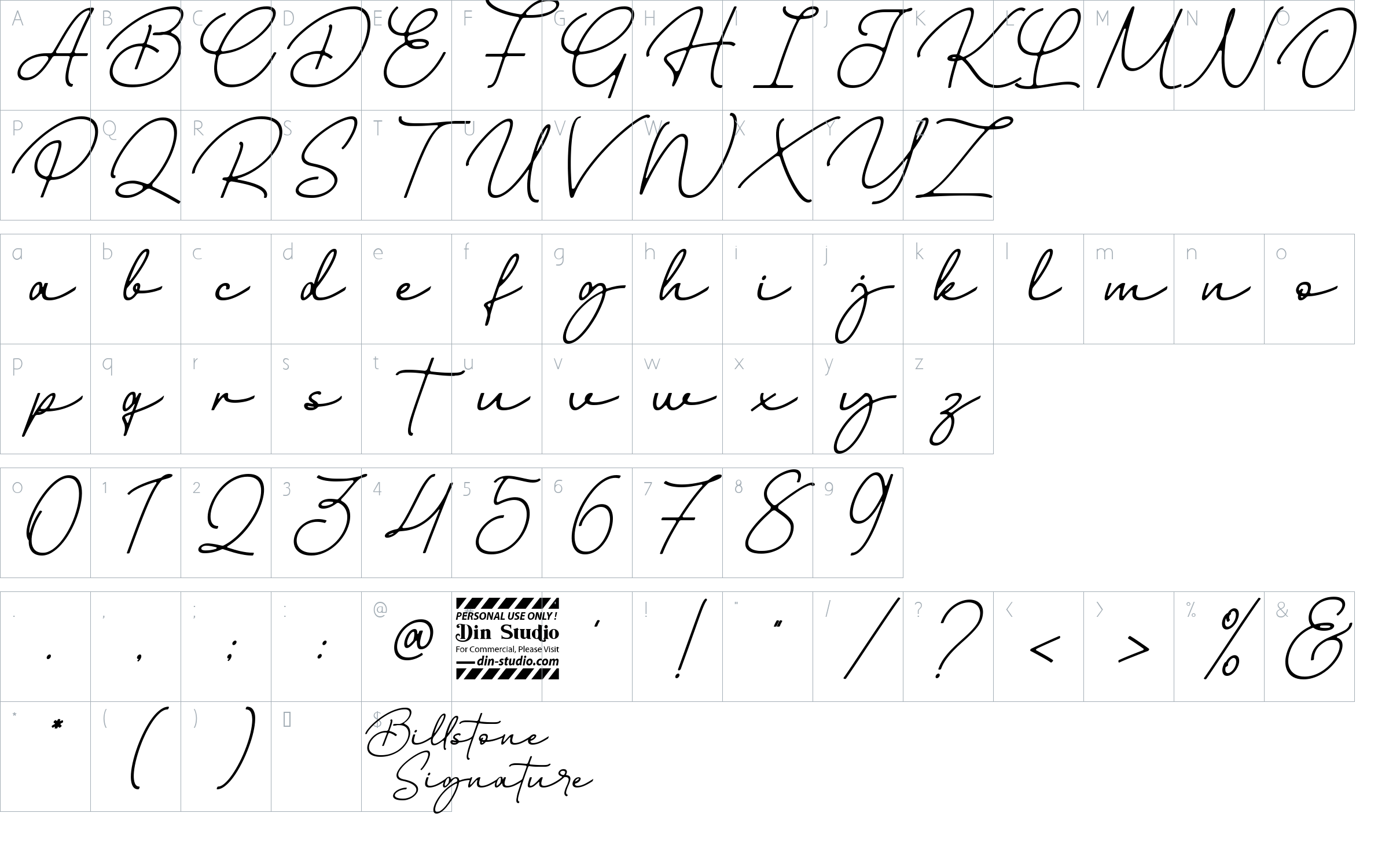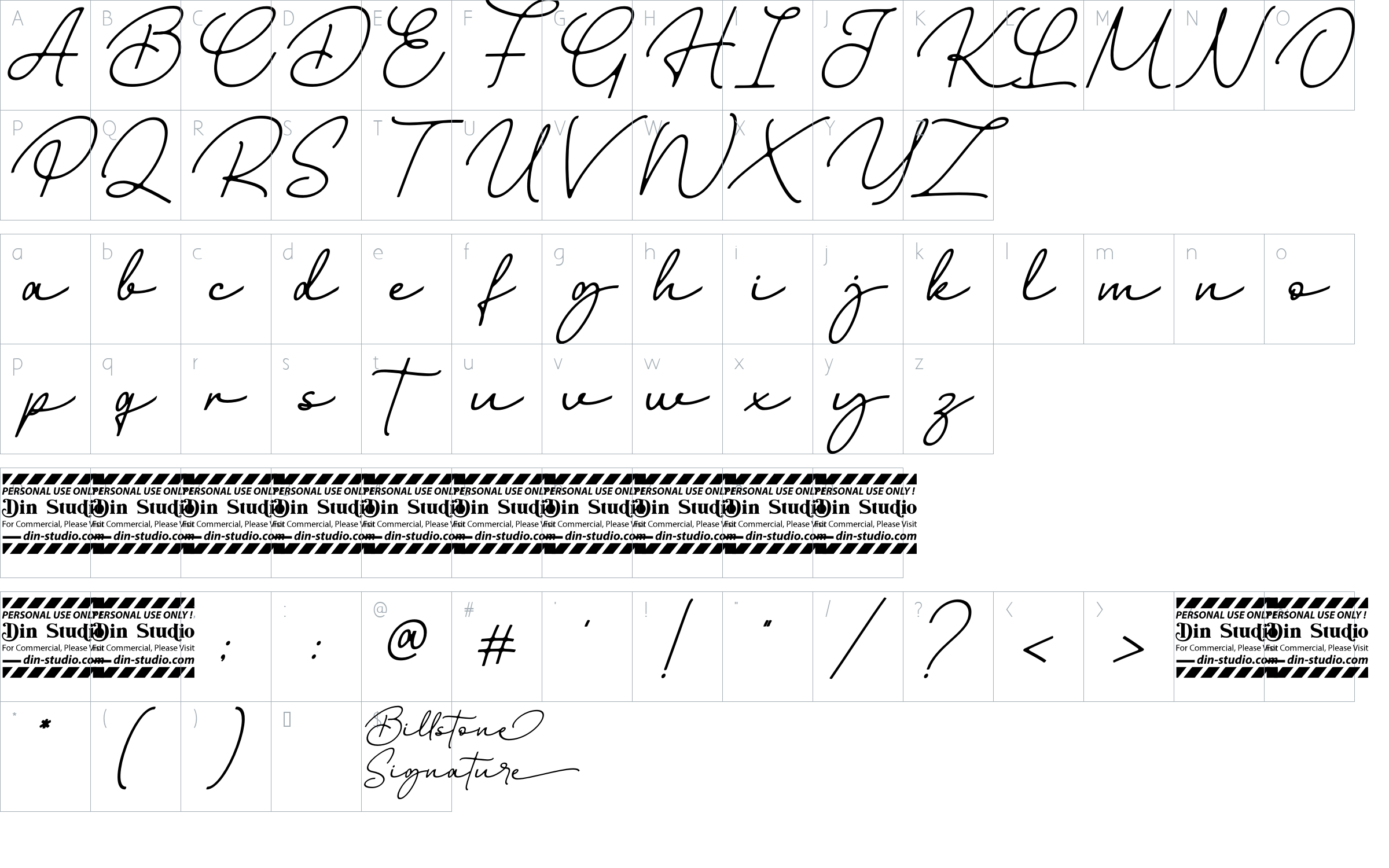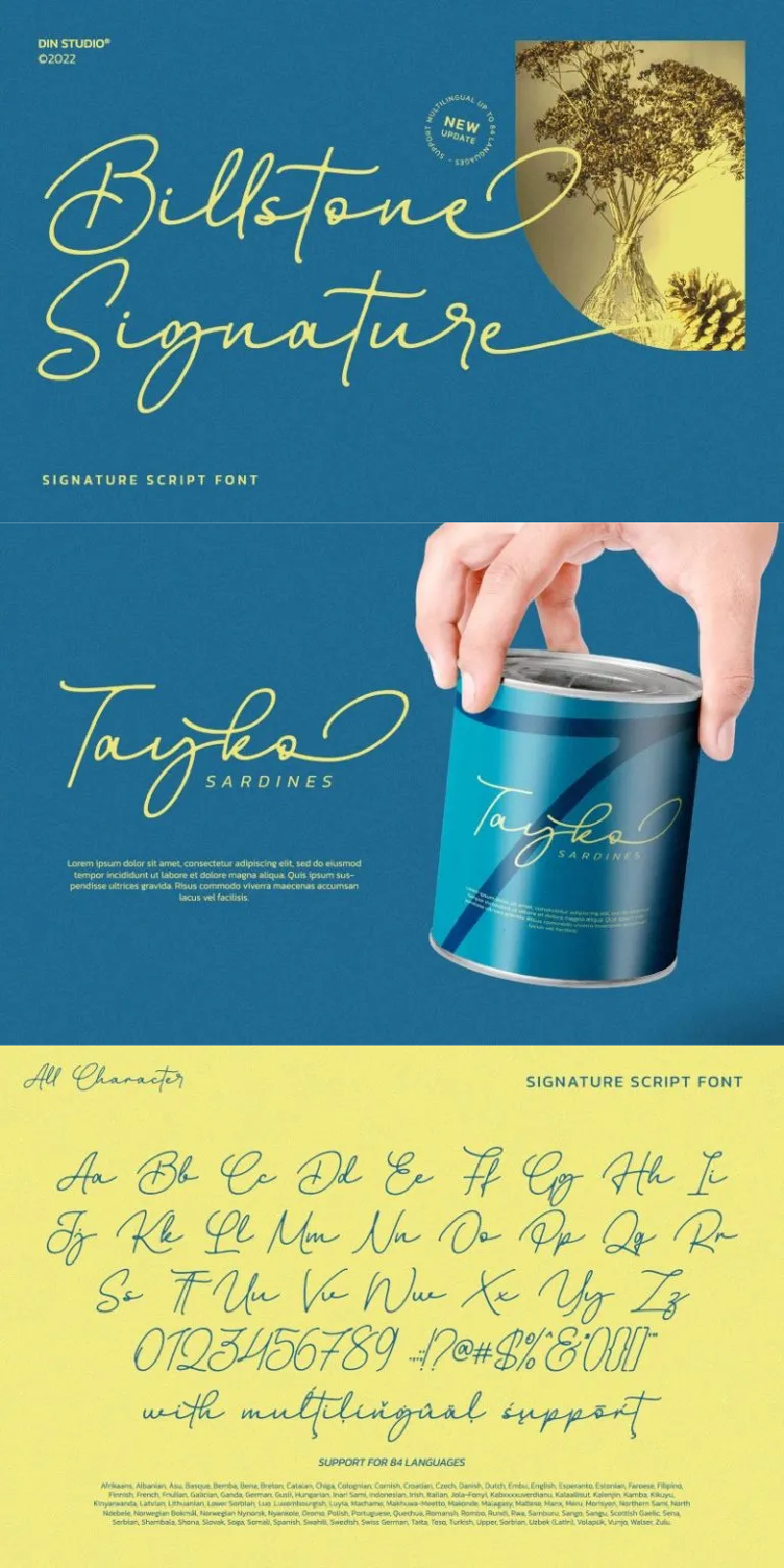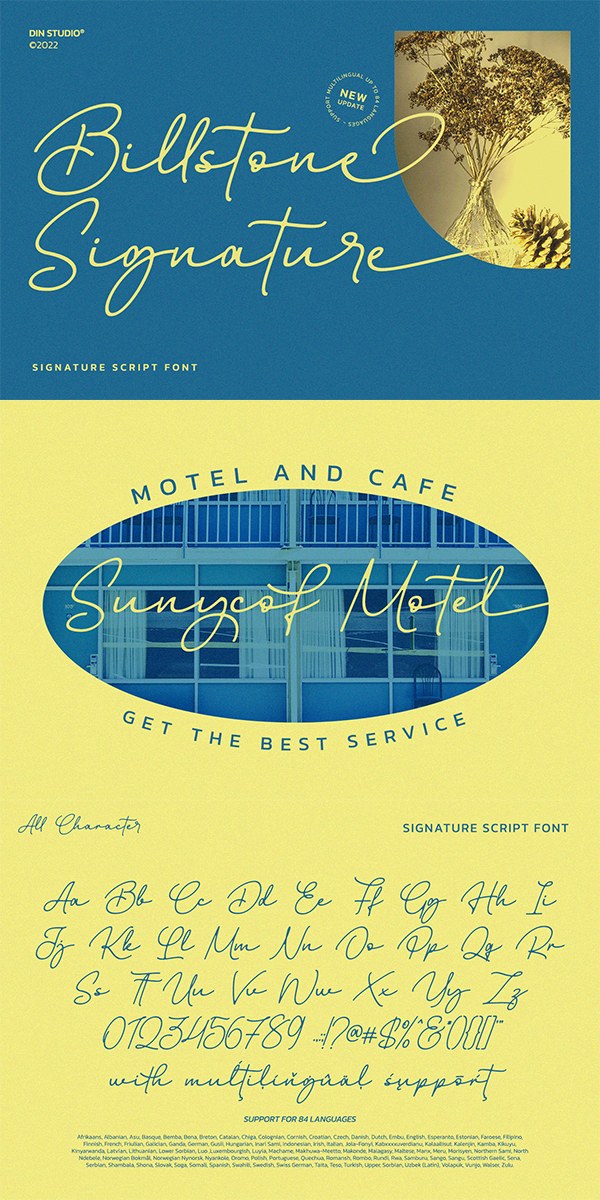
Billstone Signature Font
About Billstone Signature
Billstone Signature – A Script Font
Billstone Signature is a elegant signature font with characters that dance along the baseline. It will add a luxury and modernity spark to any design project that you wish to create! Billstone Signature is carefully handcrafted with many alternative styles, natural looking, elegant and perfect for any extraordinary project. Well suited to titles, invitations, poster designs, branding, quotes, logos, and many more.
Our font always includes Multilingual Support to make your branding reach a global audience.